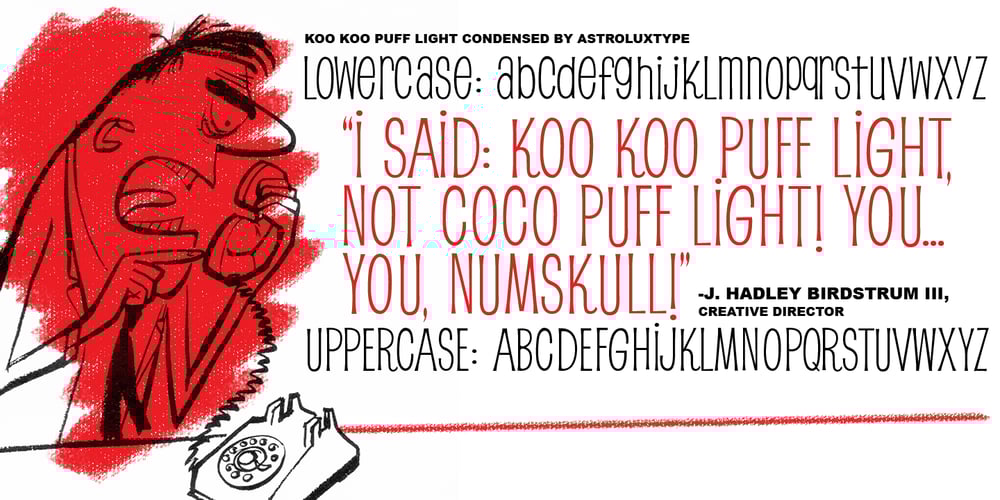
Koo Koo Puff Font Family was designed by Glenn Parsons and published by astroluxtype. Koo Koo Puff contains 2 styles and family package options. Does the world really need one more vernacular pop culture typeface? We here, at astroluxtype shout a resounding yes! Sure, at myfonts.com, you can find the apex of fine font design that will have your mind and eyes burst with joy at the level of sophistication and craftsmanship they exhibit- Koo Koo Puff Light Condensed and Regular Condensed are not one of those fonts. But if kooky goofy is your thing, we’re selling it at the astroluxtype booth. Koo Koo Puff Regular Condensed is the companion font to Koo Koo Puff Light Condensed. Both fonts includes an upper and lowercase glyph set. Regular Condensed has a different upper and lowercase “O” from the original Koo Koo Puff Light Condensed. Spacing metrics are looser, as well. The font is not a match for Light Condensed, it is a separate font. Both are headline display faces, for optimum usage it is recommended to be set at 48 points or larger in size. Look to astroluxtype’s Sugarbang! as the first in a series of fonts inspired by vintage product packaging, Koo Koo Puff is the second release in the Cerealboxx series. The third font is in the fridge getting cool now, watch for it in the future. Rave on you design genius.